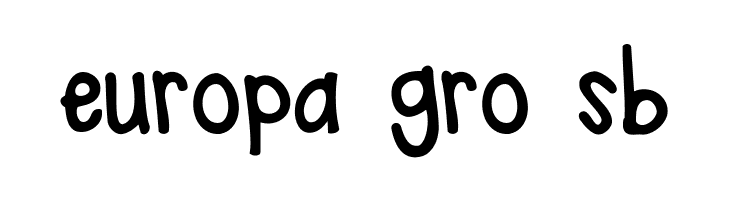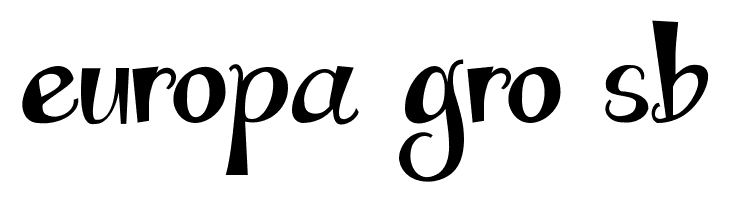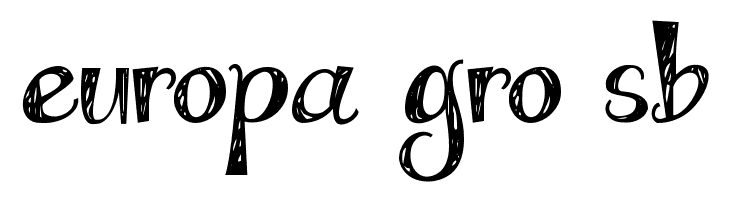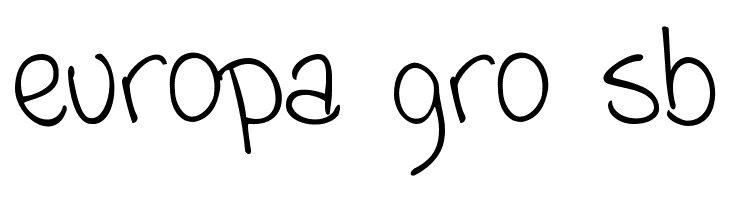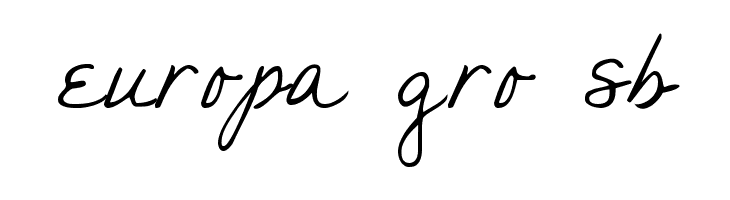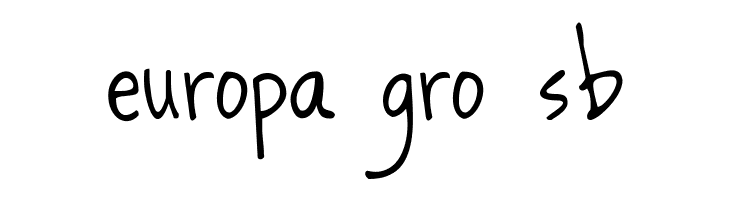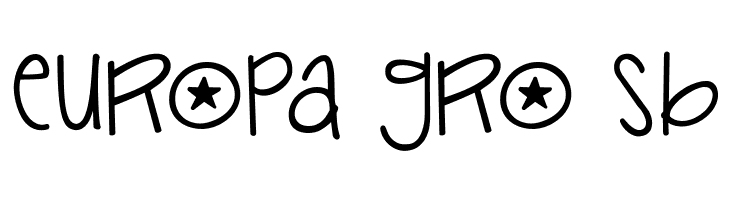
A playful handwritten font with rounded, friendly characters and heart-shaped details.
A playful and whimsical font with bold, curvy elements and creative swirls.
A whimsical, decorative font with playful curls and loops.
A playful handwritten font with rounded edges and a whimsical style.
A playful, hand-drawn font with a textured, chalk-like appearance.
A playful, casual handwritten font with a friendly and approachable style.
A playful, hand-drawn font with a whimsical and friendly style.